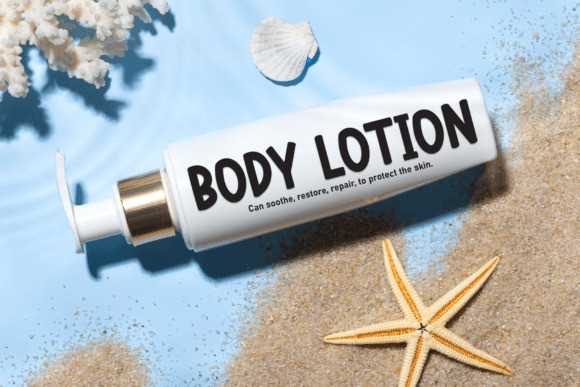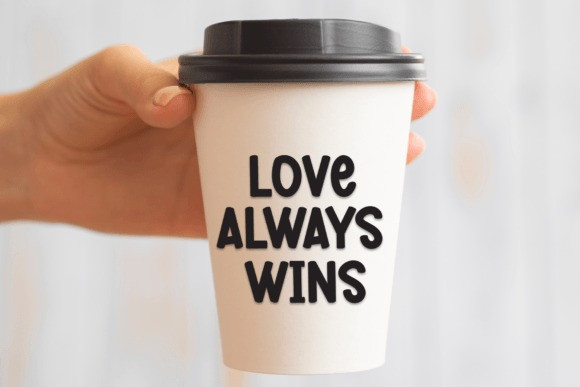
Smooth Cheese Typeface
Smooth Cheese Typeface, is a fun and versatile sans-serif font. Whether you’re using it for crafting, digital designing, presentations, or greeting card making, it’s perfect!